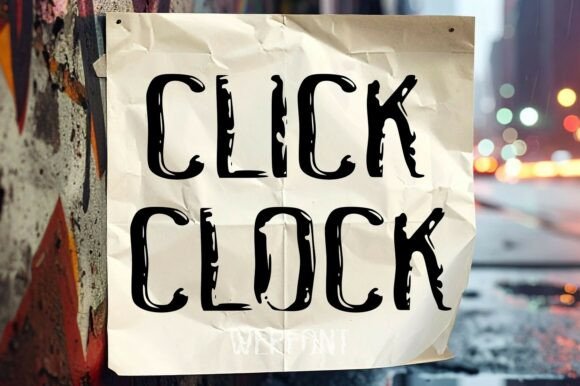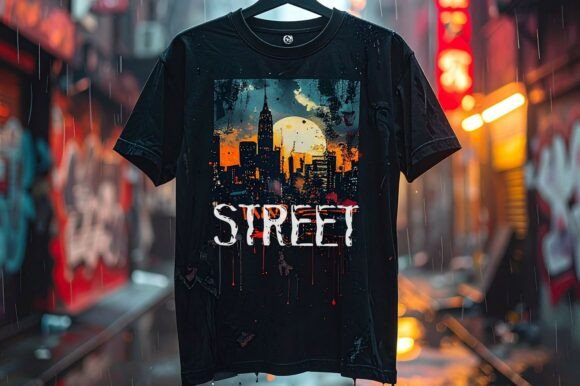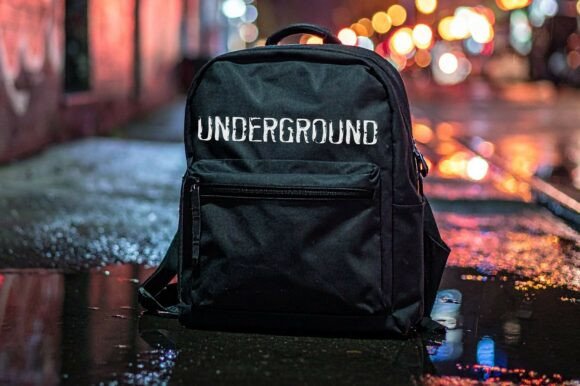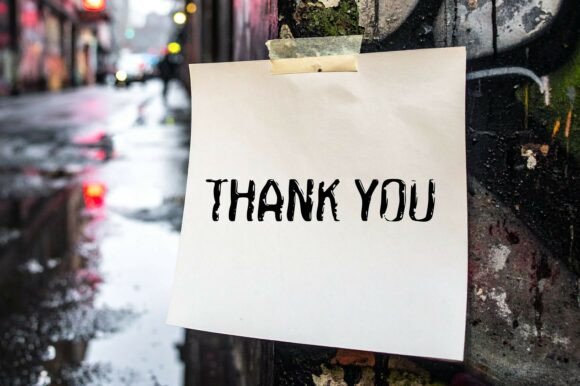
Unlock the Power of the City Streets with Click Clock Font
Have you ever been swept up in the energy of a bustling city, the hum of graffiti-splattered walls, and the raw, unbridled creativity that seems to pulse through every street corner? For designers, that feeling is the ultimate goal – to capture the essence of the urban experience and translate it into a visual language that demands attention.
That’s where Click Clock Font comes in – a stunning display font that embodies the unfiltered pulse of city life and the avant-garde spirit of street culture. With its audacious distressing and vibrantly robust aesthetic, Click Clock is the perfect tool for crafting powerful statements that can’t be ignored. Whether you’re designing a bold headline or an urgent communication, Click Clock Font is the key to unlocking a look that’s both industrial and edgy, yet uniquely evocative.
Click Clock Font Key Features
- Font Family: Click Clock is a unique display font with a futuristic and edgy feel.
- Unique Characteristics: The font features a distinctive, click-based design with a clock-inspired aesthetic, adding a touch of modernity to any design project.
Designer Review: Click Clock Font
Overall, I’m impressed with the Click Clock Font – it’s quirky, fun, and immediately catches the eye. Here are some things that work well:
- ✨ Unique aesthetic: The font has a distinct, retro-futuristic feel that’s perfect for projects that need a touch of nostalgia or playfulness.
- ✨ Versatility: Click Clock Font can be used for both display and body text, making it a great choice for a wide range of applications.
- ✨ Expressive: The font’s irregularities and variations give it a lot of character, making it perfect for use in logos, headings, and other design elements where you want to add some personality.
- ⚠️ Readability at small sizes: While the font is great at larger sizes, it can become difficult to read at smaller sizes due to its irregularities.
- ⚠️ Limited language support: Click Clock Font may not be optimized for non-Latin scripts, which could be a limitation for projects that require multilingual support.
Overall, I think Click Clock Font is a great choice for projects that need a unique and playful touch. With some careful consideration of its limitations, it can be a fantastic addition to your design toolkit.
Practical Application Guide for Click Clock Font
Click Clock Font is ideal for creating retro-inspired designs, such as:
- Retro-style graphics and logos
- Neon-inspired signs and posters
- 80s and 90s-themed designs and graphics
Alternatives to Click Clock Font for Designers
Montserrat is a sans-serif font designed by Julieta Ulanovsky. It is ideal for use in digital interfaces, signage, and editorial content. Montserrat is more geometric and modern compared to Click Clock Font, which makes it a better choice for contemporary designs.
Comparison: Montserrat is more versatile and has a larger character set than Click Clock Font, making it a popular choice for digital designers.
Open Sans is a modern sans-serif font designed by Steve Matteson. It is suitable for use in digital interfaces, web content, and print materials. Open Sans is more legible and has a cleaner design compared to Click Clock Font, making it a better choice for clear communication.